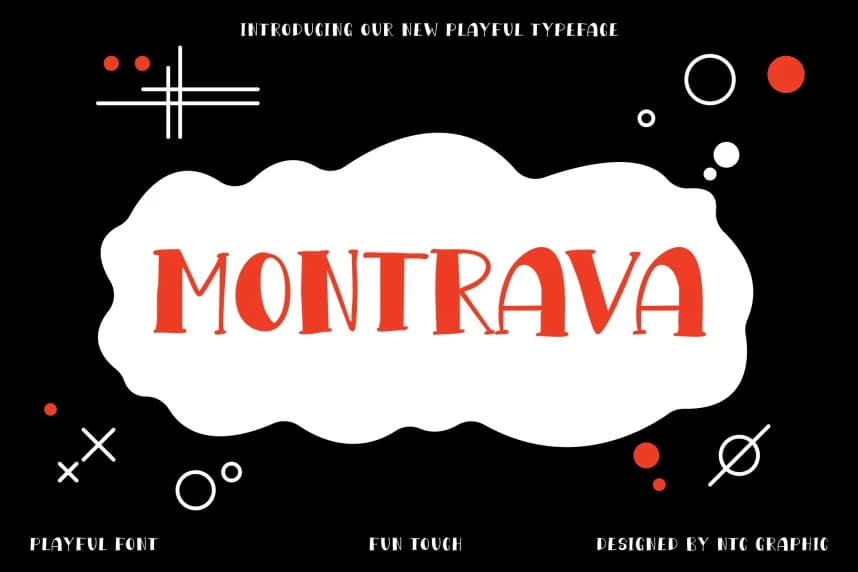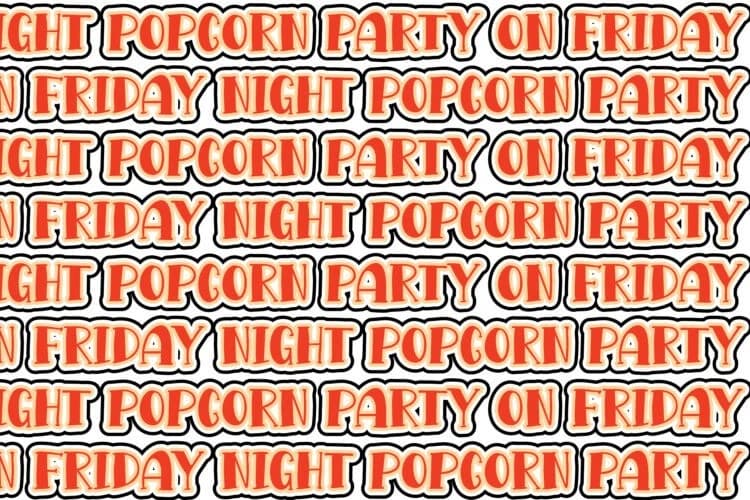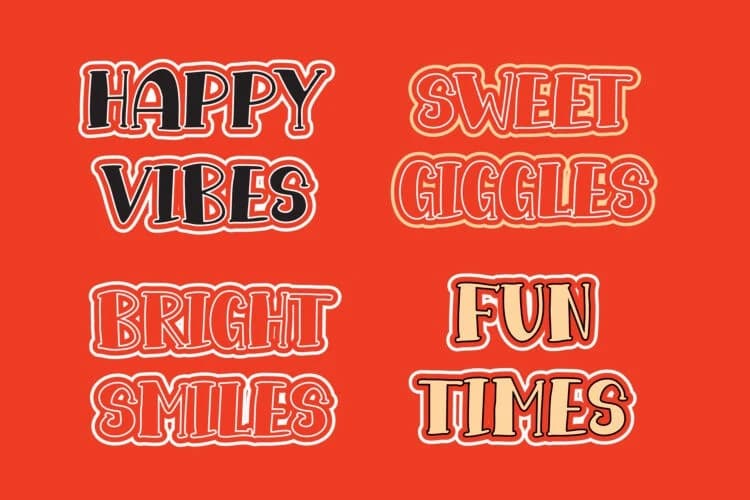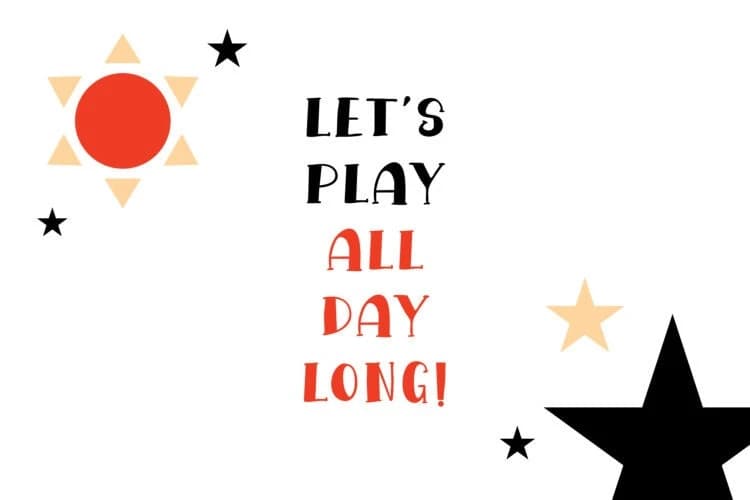
Montrava Playful Font
Montrava Playful Font is a bold and expressive typeface designed to capture attention with its unique, handcrafted character. Featuring slightly irregular shapes, artistic curves, and a fun retro-inspired display style